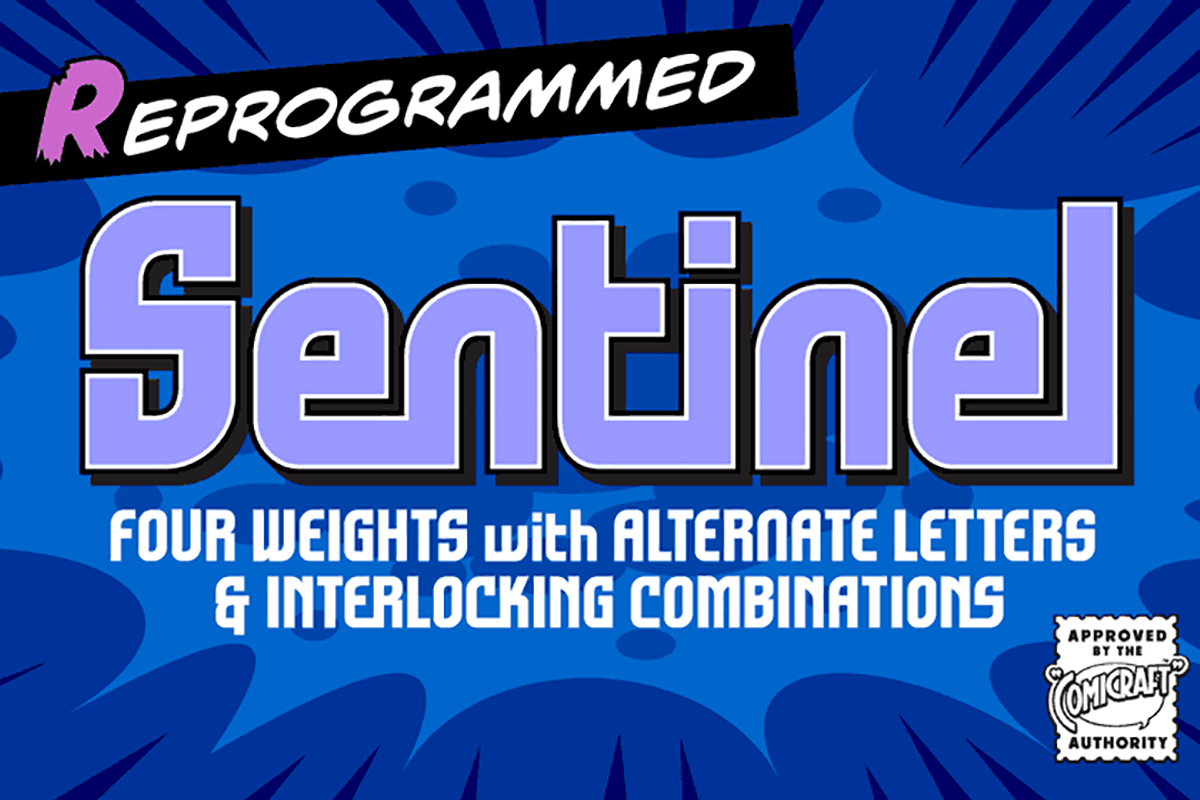
Sentinel - Bold Comic Book Logo Font Free Download is a dynamic and powerful typeface designed to make a statement in comic book logos, posters, and action-packed branding. With its bold, energetic strokes and sharp edges, this font brings an intense, larger-than-life feel to any project. Please note that you must purchase this font for commercial use, but it is available as a free download for testing purposes. Add a punch of boldness and adventure to your designs with Sentinel - Bold Comic Book Logo Font Free Download, and let your typography stand out with dramatic flair.